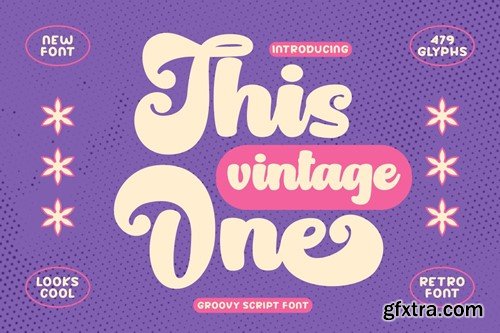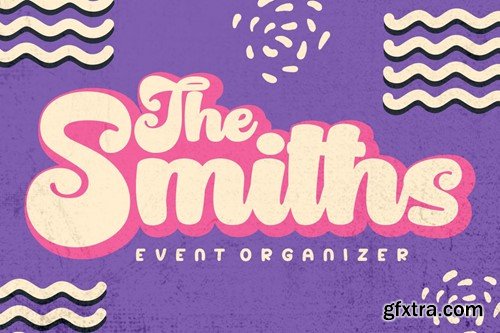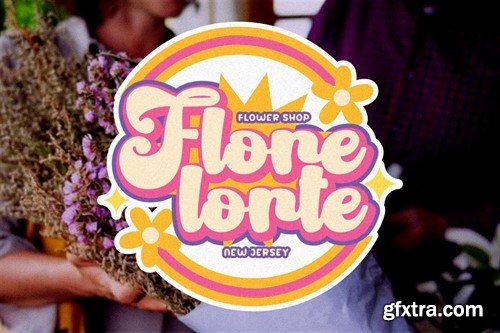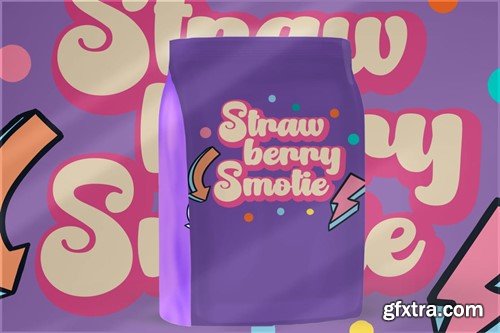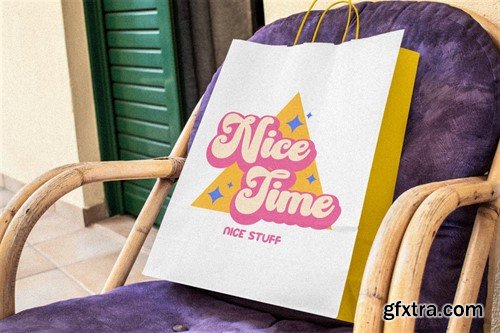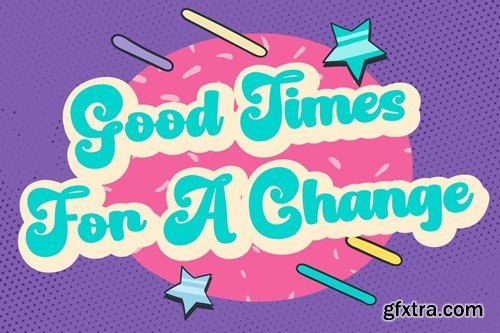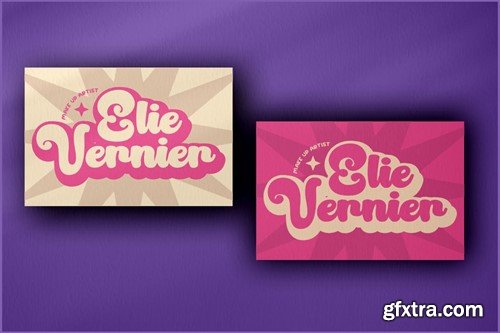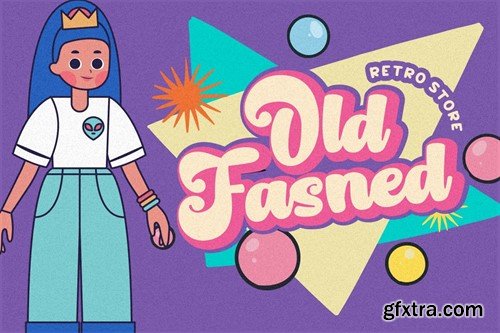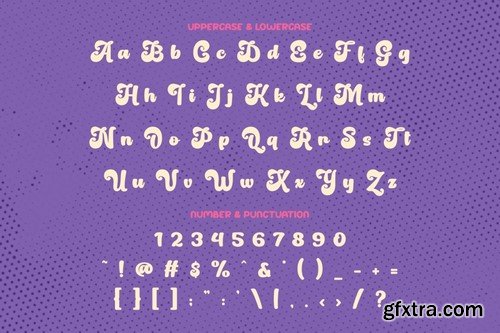
复古字体 This Vintage One - Retro Font M7J6CSN
This Vintage One - Retro Font is a script typeface that embodies bold retro aesthetics with a touch of nostalgia. The font is crafted with a multitude of alternative characters, each offering unique variations and even decorative swooshes in the alternates. Its thickness and groovy style make it a great choice for a wide range of applications. Whether you're working on logos, packaging, invitations, greeting cards, posters, magazines, titles, business branding, or designs with a retro and vintage theme, This Vintage One adds a sense of classic charm and style to your projects. The font's alternative characters and swooshes allow for a myriad of design possibilities, making it a versatile resource for creating captivating visuals with a vintage flair. In Package : Feature : Note : The preview mock-up, element, shadow, image or graphic stock is not included in the download file. It’s only for presentation purpose. Thank you